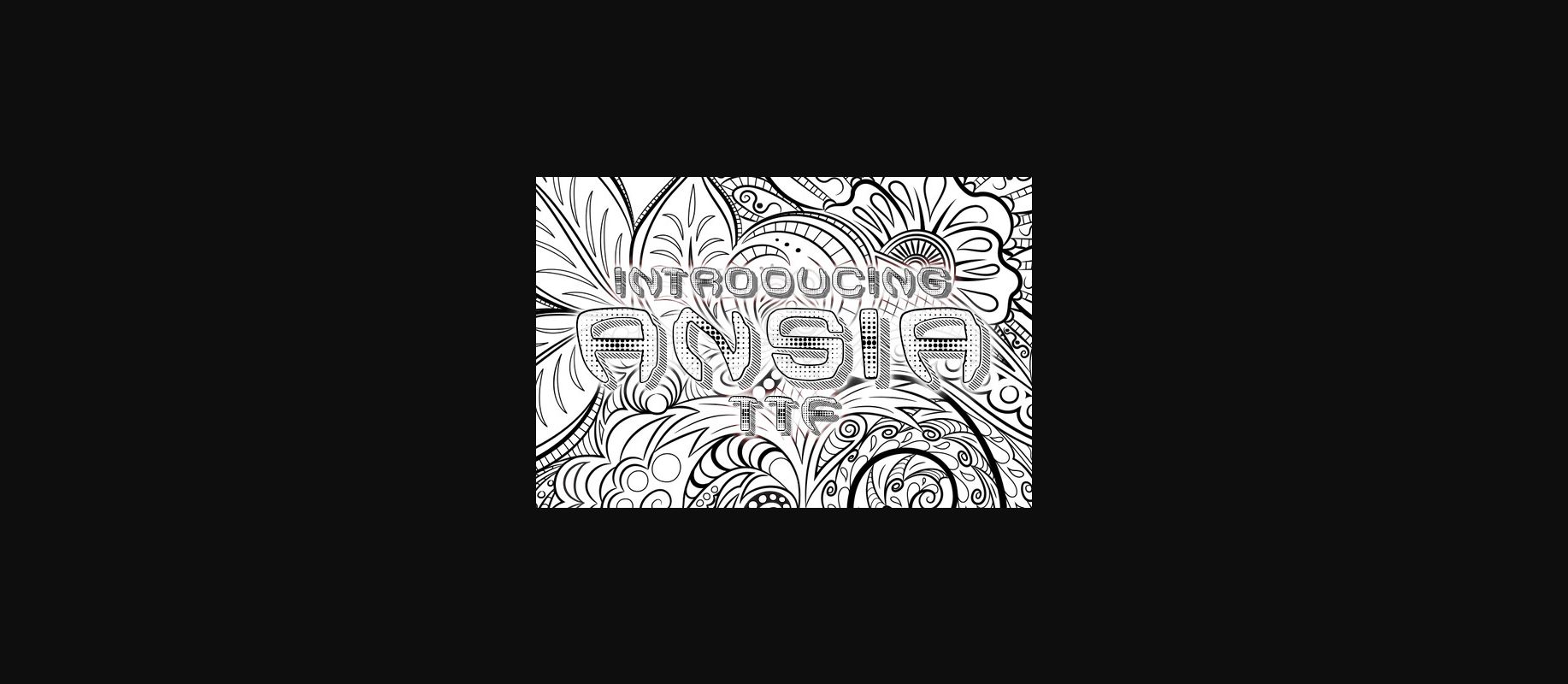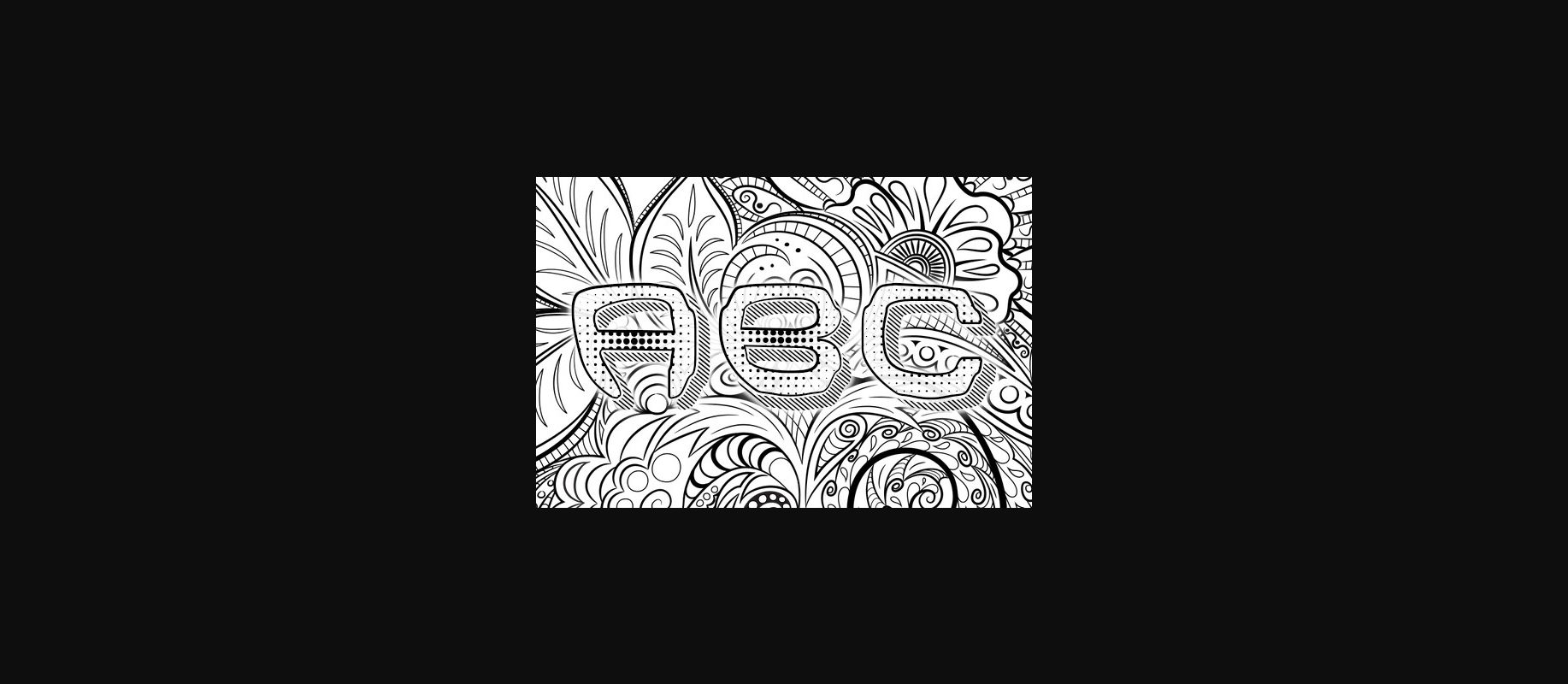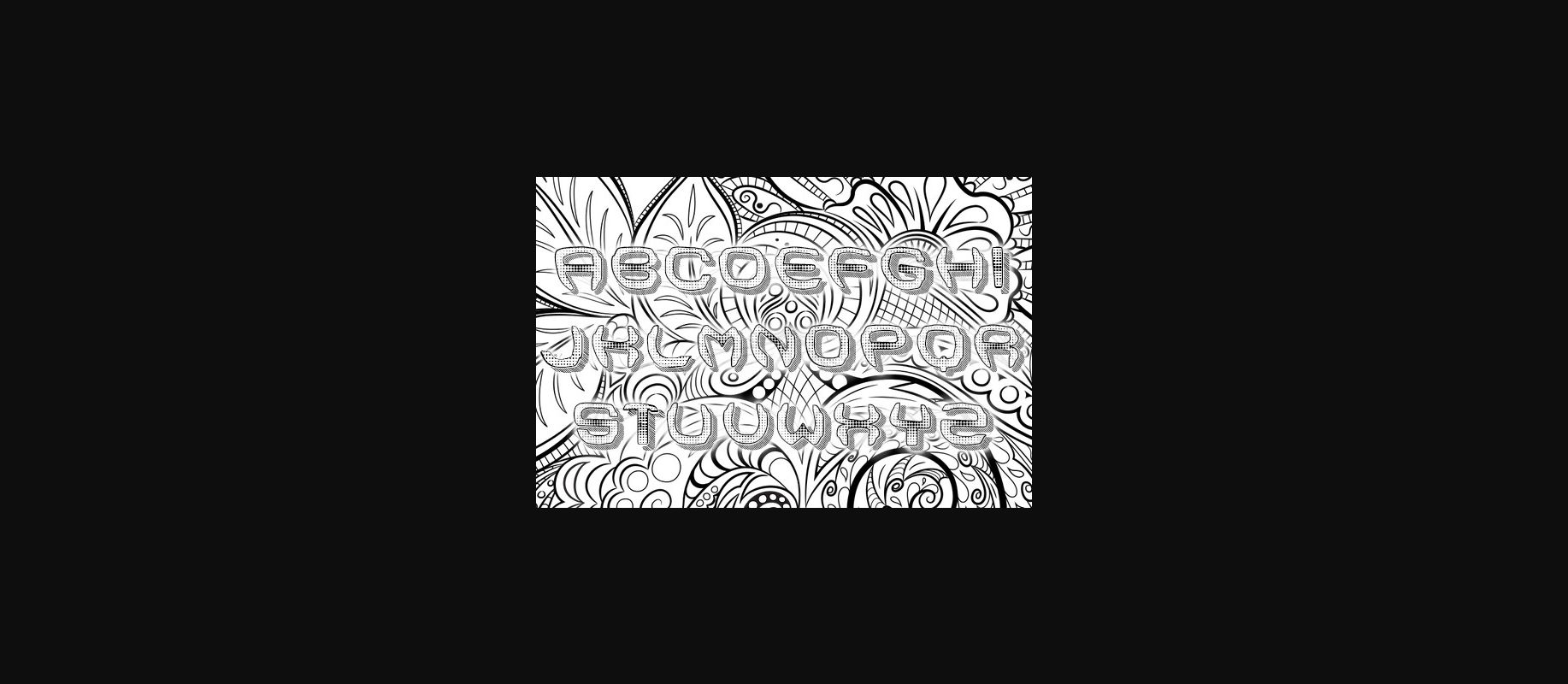
HomeDecorative FontsAnsia Font Decorative Fonts Ansia Font FacebookXPinterestWhatsApp 1 of 5 ... Ansia Font Poster 2... Ansia Font Poster 3... Ansia Font Poster 4... Ansia Font Poster 5... About Ansia Font Ansia is an expressive deco typeface that will make your designs look amazing. Use this font on shirts, posters, and headlines. DOWNLOAD NOW People also explored Gualapa Font Plain Write Font Almonde Font Horbelly Font Chateau Font Christmas MInimalist Font Dragline BTN Cherry Complete Silent Font 405 0 TagsAnsiaAnsia Font Previous articleRemained FontNext articleStarlight Font LEAVE A REPLY Cancel reply Comment: Please enter your comment! Name:* Please enter your name here Email:* You have entered an incorrect email address! Please enter your email address here Website: Save my name, email, and website in this browser for the next time I comment. Personal Use Free Zelega Zenega Personal Use Free Read more about this font Hashira Mt Personal Use Free Read more about this font Osaka Personal Use Free Read more about this font Bitcrusher Condensed Bold Personal Use Free Read more about this font BLOG Transform Your Website: Elevate Your Typography with 7 Best Web Font Generators Are you ready to transform your website's typography from ordinary to extraordinary? Great! Today, we're diving into the world of web font generators, which... Top 7 Google Fonts Alternatives for Faster and Privacy-Friendly Web Design (2025) How to Cut Any Font on Cricut: Convert a Font to SVG (Free) Free vs Paid Fonts: Why Investing in Premium Fonts Is Worth It